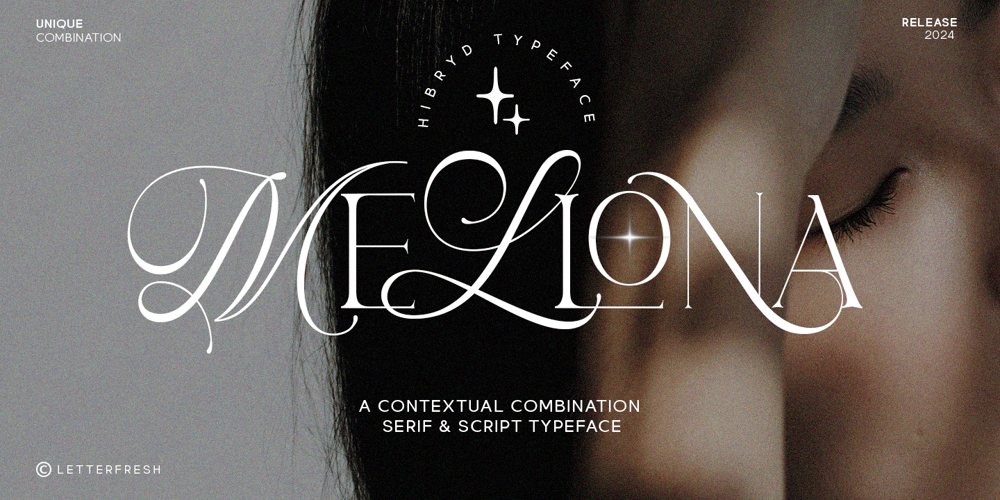
Mellona Font Family was designed by Rizki Andika and published by Letterfreshstudio. Mellona contains 1 styles and family package options. Introducing Mellona Typeface is a beautiful and inspiring hybrid font that combines classic calligraphy and modern serifs. With flowing curves and intricate details, Mellona Typeface creates a sense of grace and beauty that is both timeless and modern. This font displays various characters,Mellona Typeface is perfect for branding, logotypes, social media posts, advertising, product packaging, labels, photography, watermarks, t-shirts, website designs, invitations, stationery and any project looking for a touch of romantic elegance with a modern twist.FEATURE- Alternative Styles- Ligature- Uppercase and lowercase letters- Numbering and Punctuation- Works on PC or Mac- Simple Installation- PUA Coded Characters – Easy to access without additional design software.- Supports Adobe Illustrator, Adobe Photoshop, Adobe InDesign, also works in Microsoft Word- Multilingual support including Afrikaans, Albanian, Basque, Catalan, Danish, Dutch, English, Estonian, Faroese, Filipino, Finnish, French, Galician, German, Icelandic, Indonesian, Irish, Italian, Malay, Bokmål Norwegian, Portuguese, Spanish, Swahili , Swedish, ZuluHope you like it.Thank You.